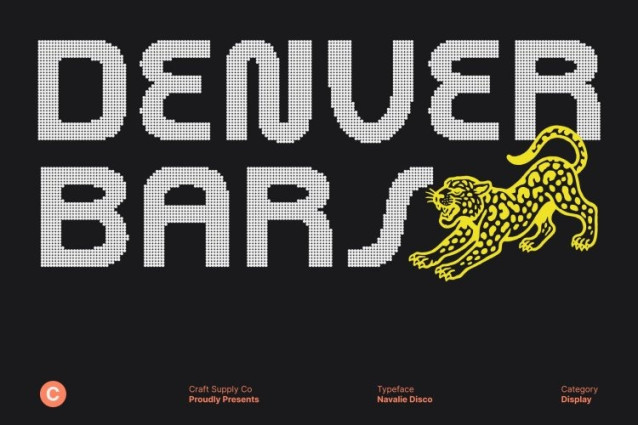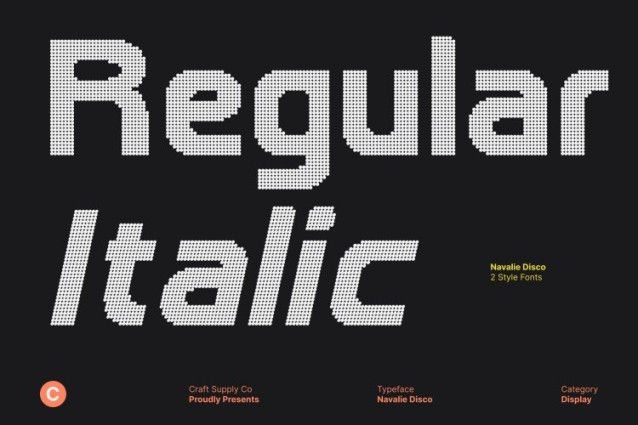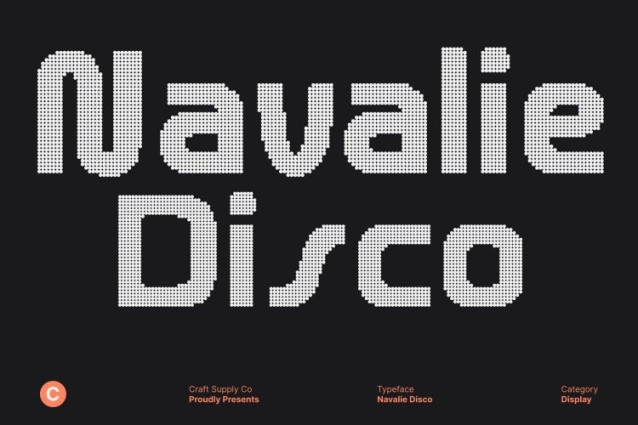
Navalie Disco Font
Navalie Disco Font This is a bold sans serif display font that fuses retro-inspired strength with vibrant disco flair. Its chunky, confident letterforms echo vintage typography, while the disco treatment adds a sense of movement, shine, and modern excitement. The result is a typeface that feels nostalgic yet electrifying bold, stylish, and impossible to ignore.
Distinctive Retro Vibe with Festive Glamour
Rooted in retro aesthetics, captures the spirit of classic eras while channeling the energy of flashing lights and late-night dance floors. Its bold shapes radiate confidence and joy, transforming every word into a visual celebration. This unique blend of nostalgia and disco sparkle creates a lively, expressive personality that stands out instantly.
Attention-Grabbing Display with Energetic Presence
Designed for maximum impact, this font thrives in headlines, posters, logos, and statement typography. The disco style amplifies its boldness, making layouts feel dynamic, festive, and full of rhythm. Whether scaled large or used selectively, brings visual excitement without losing clarity or strength.
Perfect for Retro Parties, Events, and Expressive Branding
This is ideal for retro-themed events, party posters, music visuals, fashion branding, and bold promotional designs. Inspired by the pulse of the dance floor and glowing neon lights, it delivers a glamorous, energetic vibe that turns every design into a celebration of style and confidence.